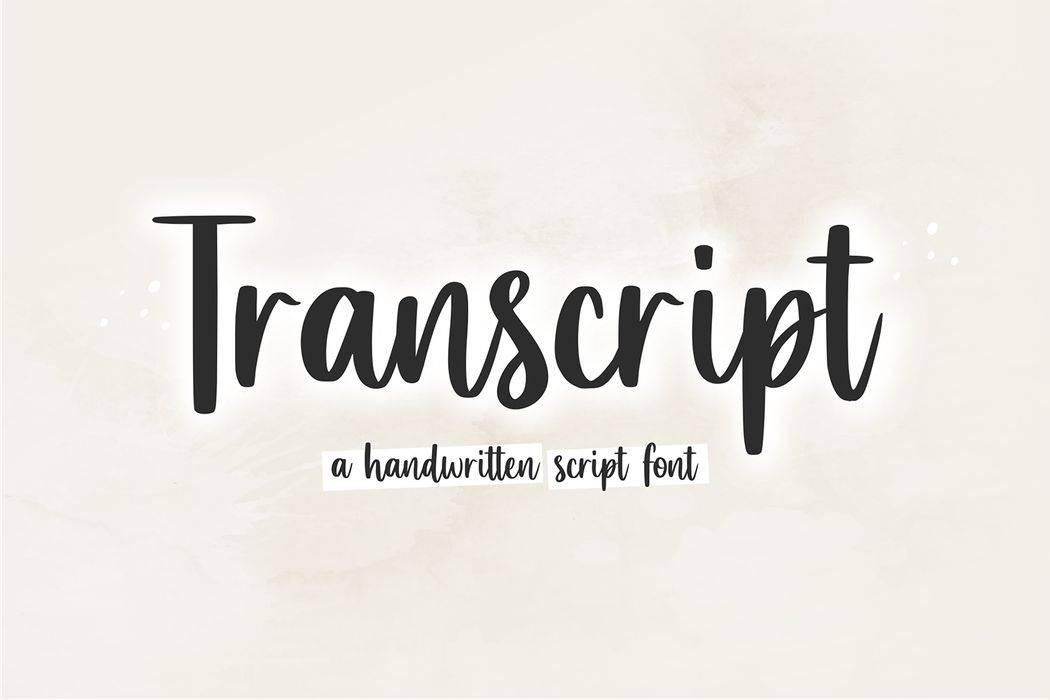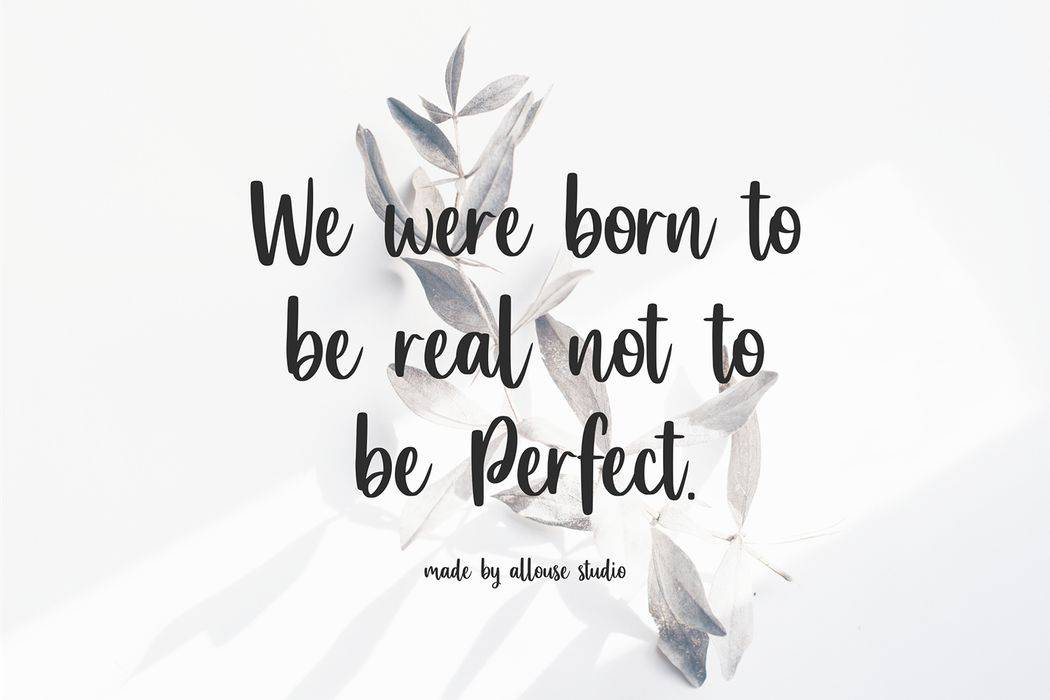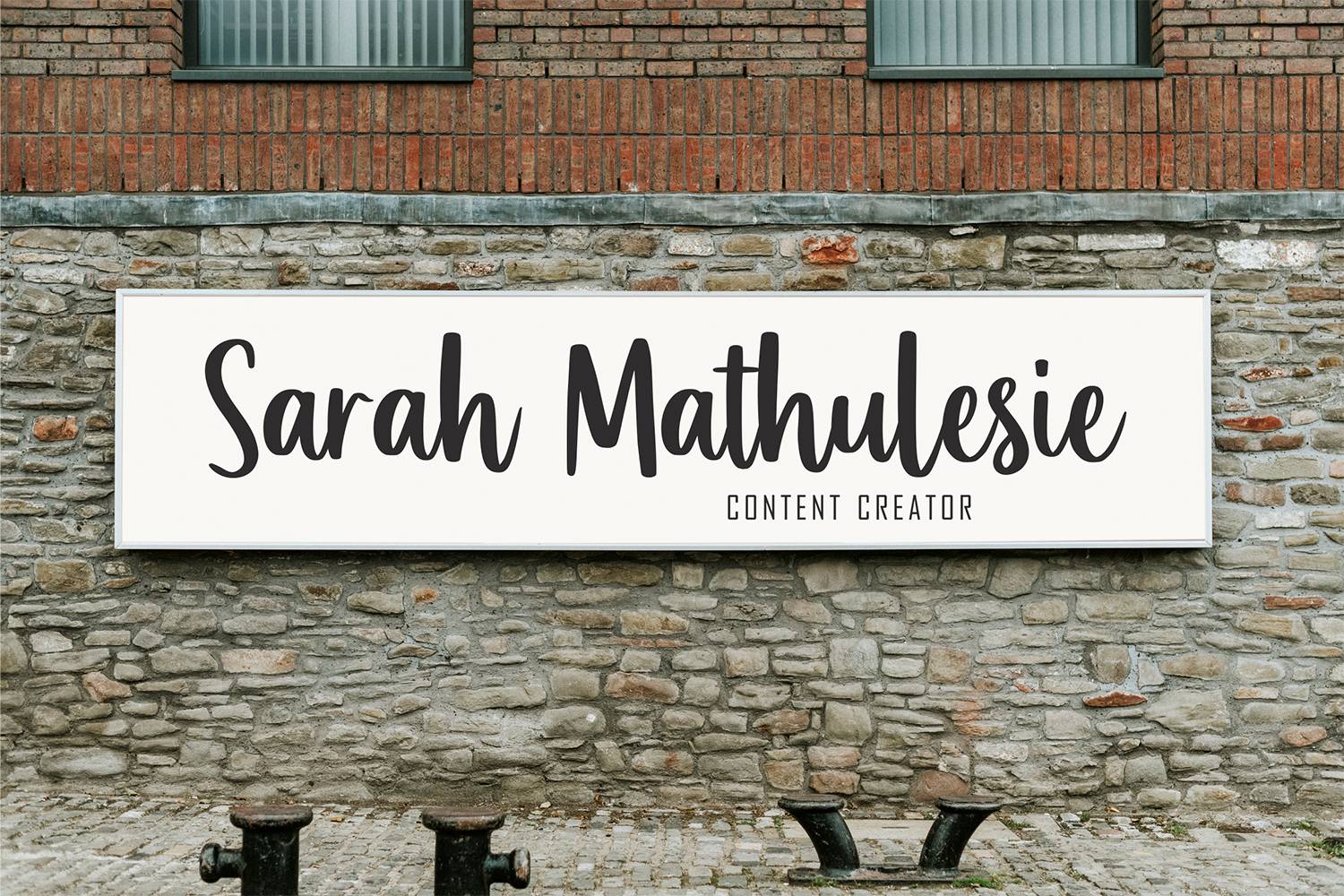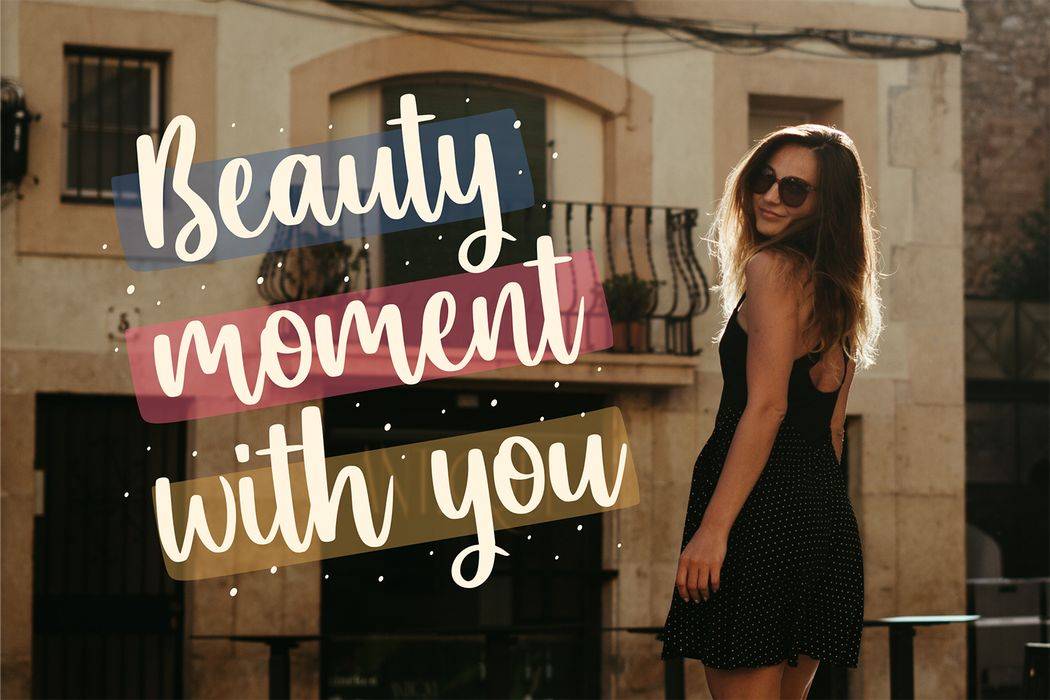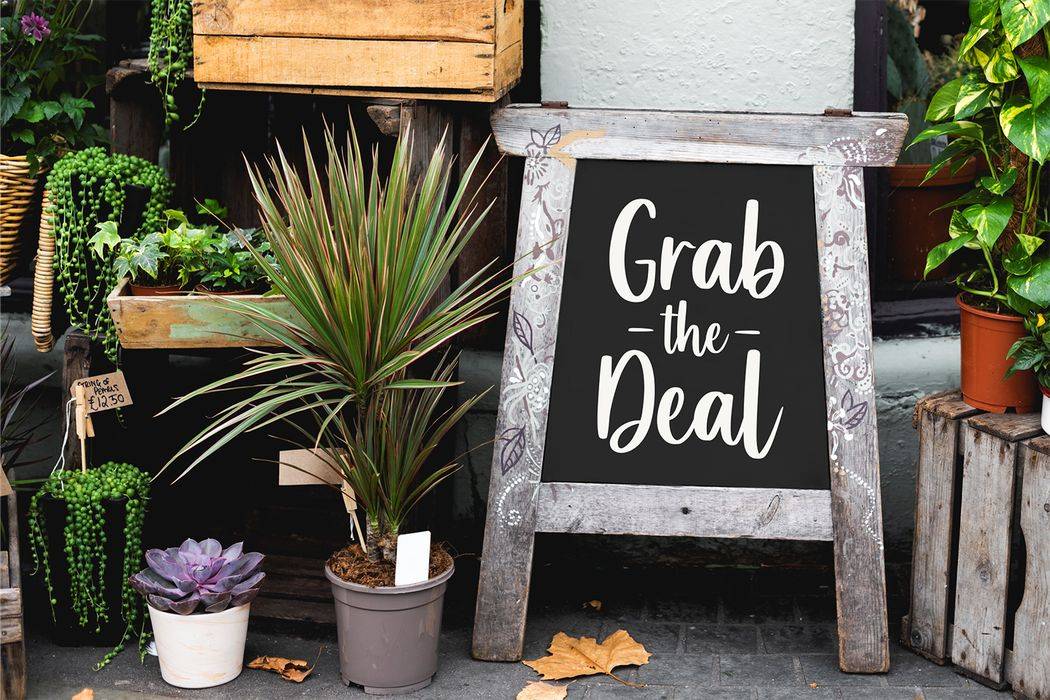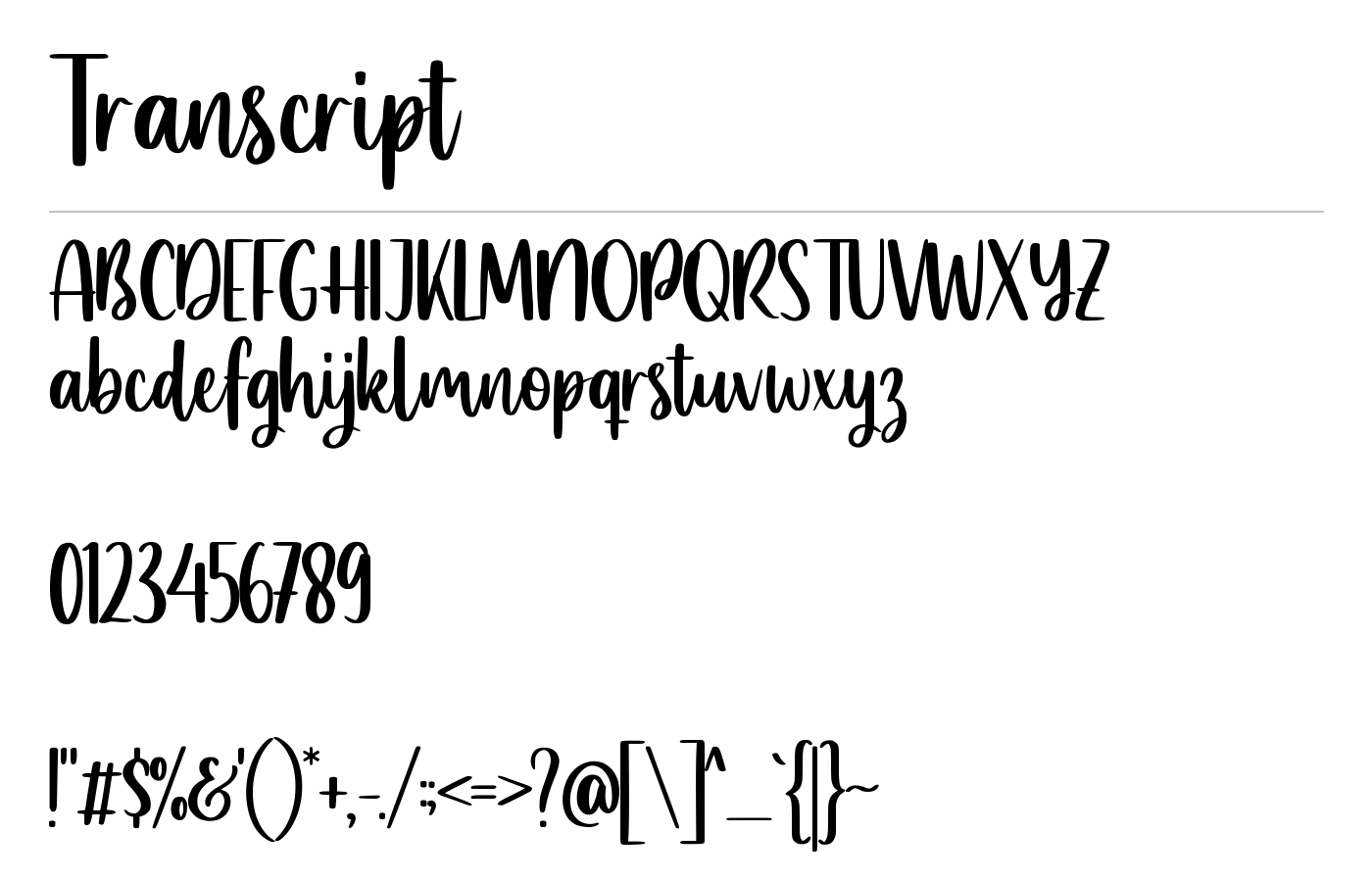
Transcript is a lively, hand-drawn script font with tall, narrow letterforms and a friendly, casual feel. Its smooth, slightly bouncy strokes and clear readability make it perfect for playful branding, invitations, and informal headlines where warmth and personality are key. This font works best in creative, approachable designs that need a personal touch without sacrificing clarity.
Transcript Font
About Transcript Font